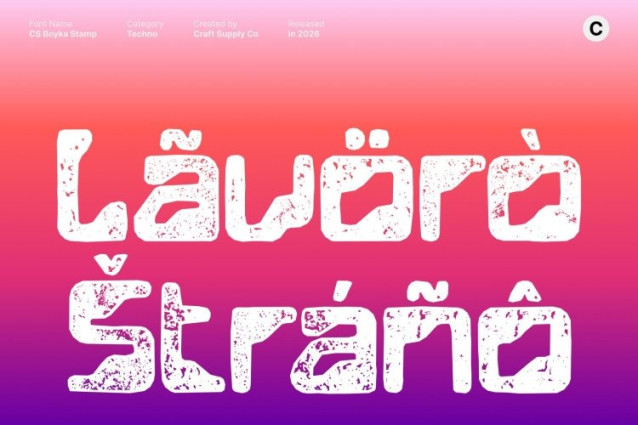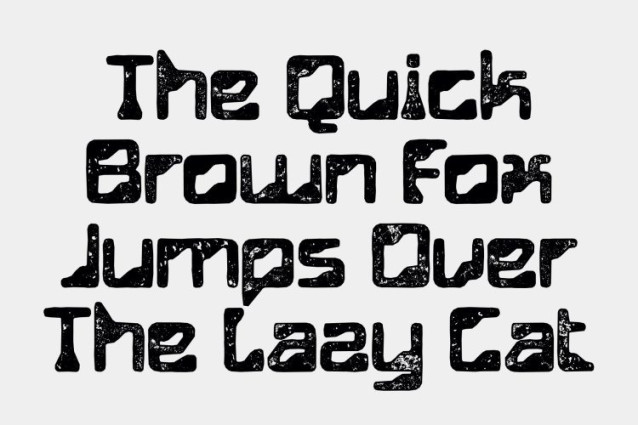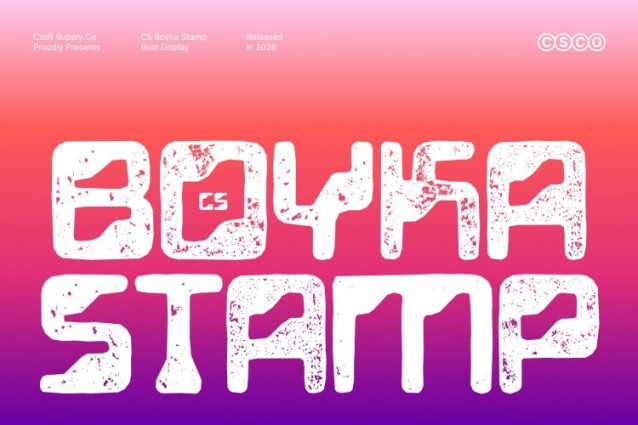
CS Boyka Stamp Font
CS Boyka Stamp Font – This transforms its sharp, techno-inspired structure with a subtle stamped texture that adds depth and raw character. The bold angles, geometric construction, and structured forms remain precise and futuristic, while lightly distressed edges and ink variations introduce an industrial, tactile dimension like a mark pressed onto metal or concrete.
Minimalist Geometry Meets Grit
Rooted in a clean digital aesthetic, preserves its minimalist clarity while gaining a rugged, mechanical feel. The stamped effect enhances the angular contours and sharp terminals, giving the font a slightly worn, cyber-industrial presence that feels both engineered and expressive.
Mysterious, Visionary, and Commanding
With its sci-fi spirit and textured finish, feels like typography from a coded future bold, controlled, and powerful. The added imprint effect softens its digital sharpness just enough to create visual contrast, resulting in a compelling balance between high-tech precision and raw materiality.
Perfect for Futuristic and High-Impact Design
Ideal for tech branding, gaming graphics, UI concepts, esports visuals, sci-fi posters, and experimental layouts, thrives in bold display settings. It delivers a cutting-edge aesthetic infused with industrial texture engineered for designers who want their work to feel innovative, assertive, and unmistakably future-driven.